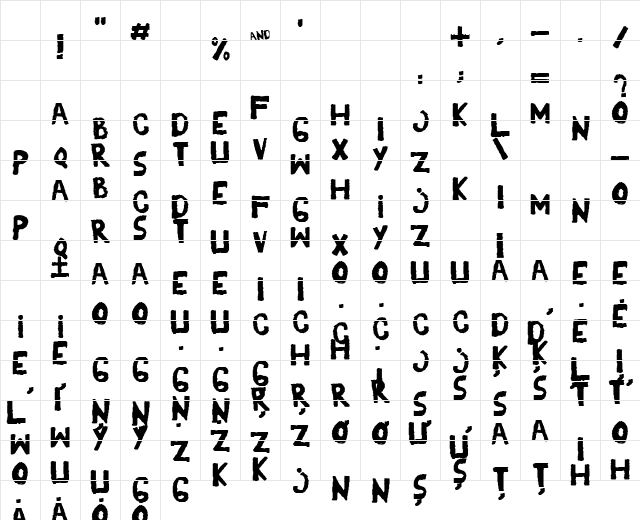
Complete YES_shaken Regular glyph index. Displaying only characters natively supported by YES_shaken Regular font.
YES_shaken is a composed and adaptable typeface that performs quietly and consistently across a wide range of design contexts.